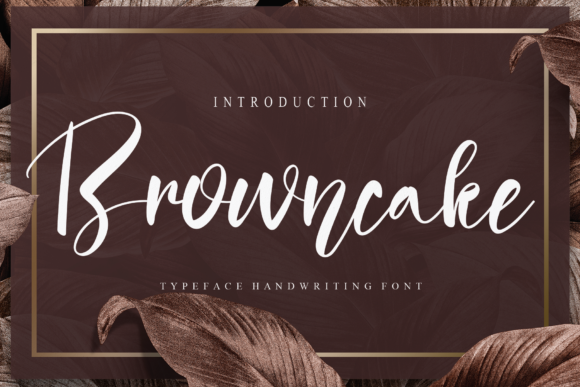
Step into the realm of elegance and creativity with the Browncake Font, a mesmerizing handwritten font that will transform your designs into captivating works of art. Crafted with meticulous attention to detail, this script font oozes sophistication and charm, making it the perfect choice for designers seeking to elevate their projects beyond the ordinary.
With its flowing lines and graceful curves, the Browncake Font dances across the page, evoking a sense of joy and wonder. Each letter is a masterpiece, carefully crafted to convey a unique personality and charm. Whether you're designing logos, invitations, posters, or any other creative project, the Browncake Font will add a touch of elegance and uniqueness that is sure to capture hearts.
Unleash your creativity and immerse yourself in a world of possibilities with the Browncake Font. Adorn your designs with the beauty of handwritten script, and let your imagination soar as you create designs that leave a lasting impression. From apps to websites, branding materials to social media graphics, the Browncake Font will elevate your designs and make them shine.
So, embrace the allure of the Browncake Font and embark on a creative journey like never before. Experience the joy of designing with a font that speaks to your soul and ignites your passion. Let the Browncake Font be your muse, and create designs that are as unique and captivating as you are.